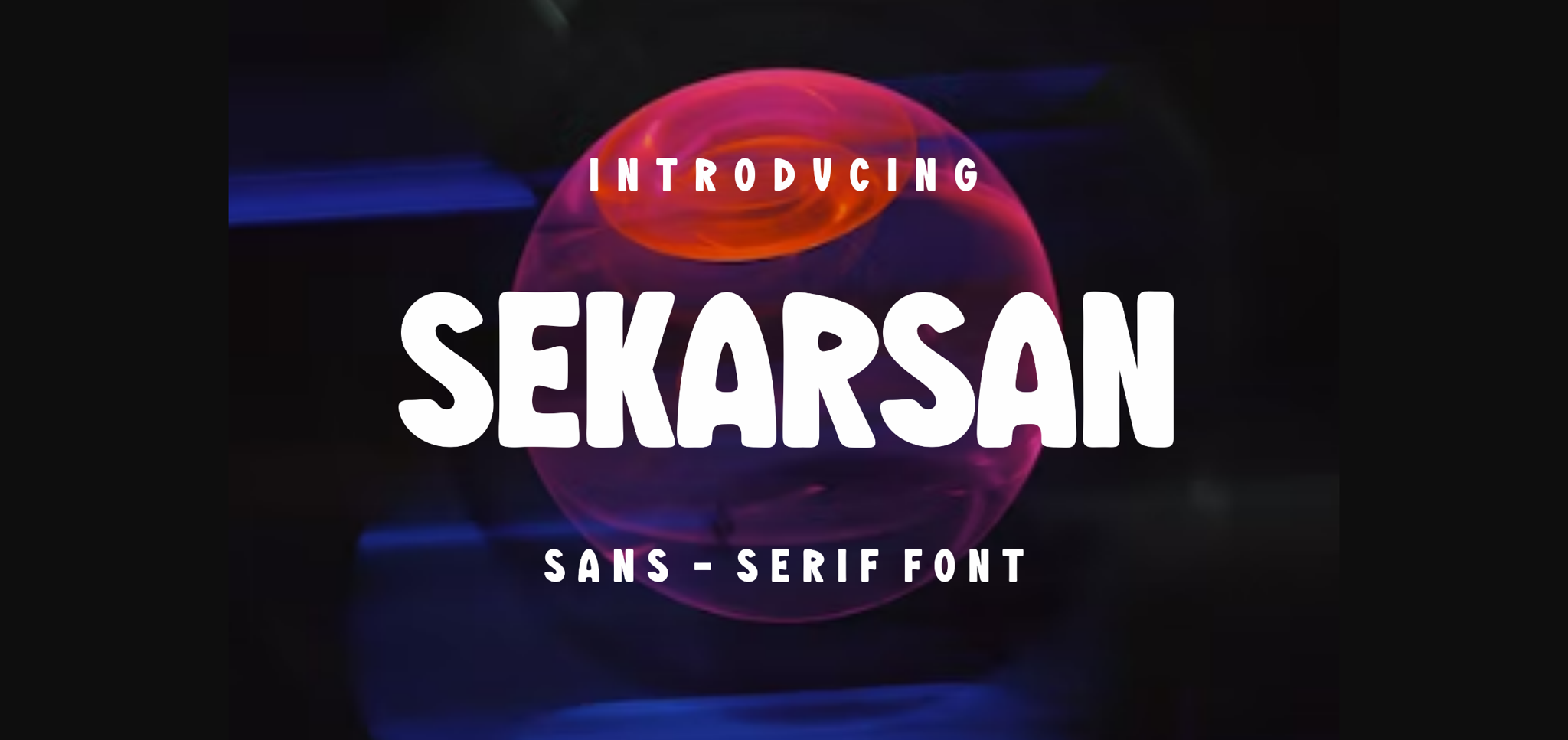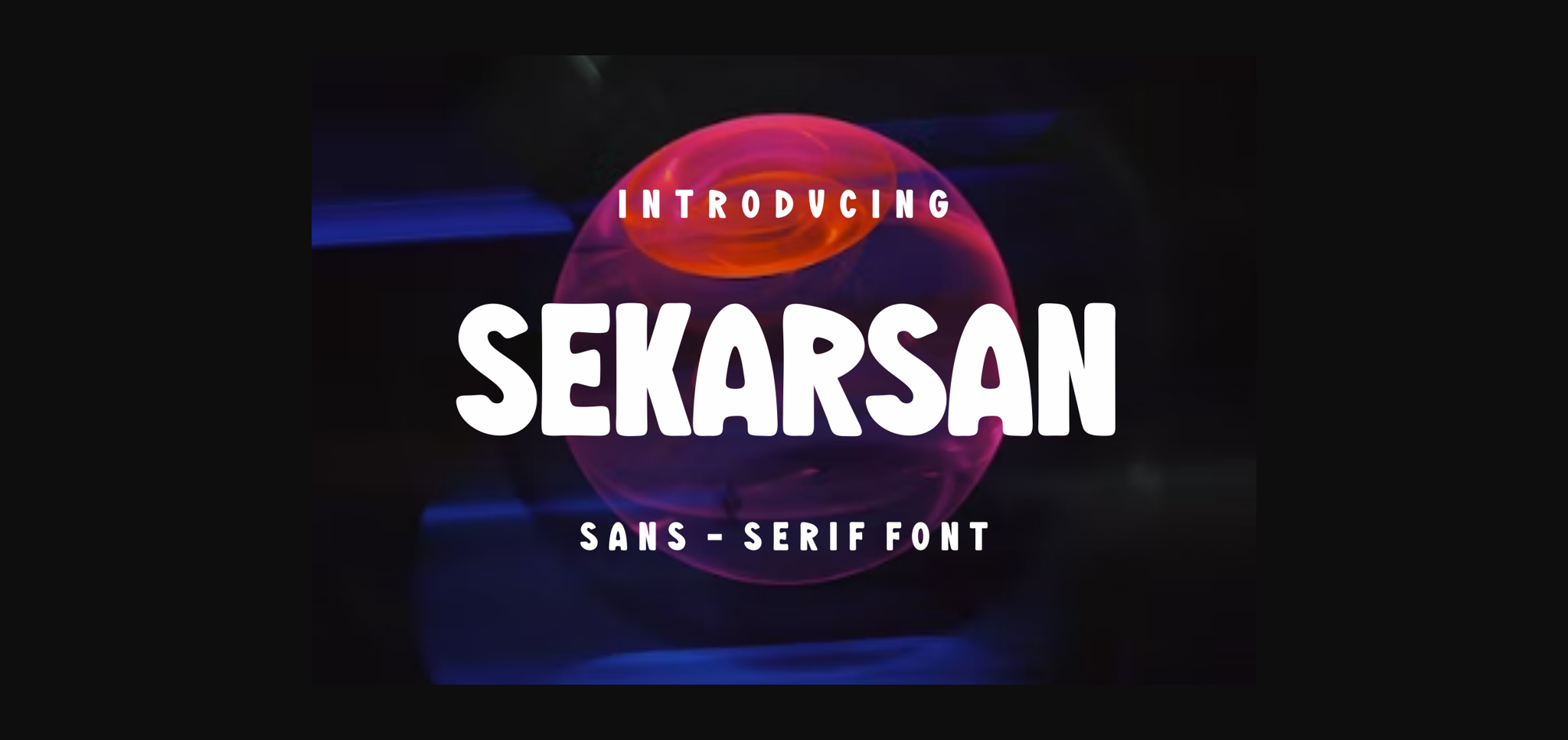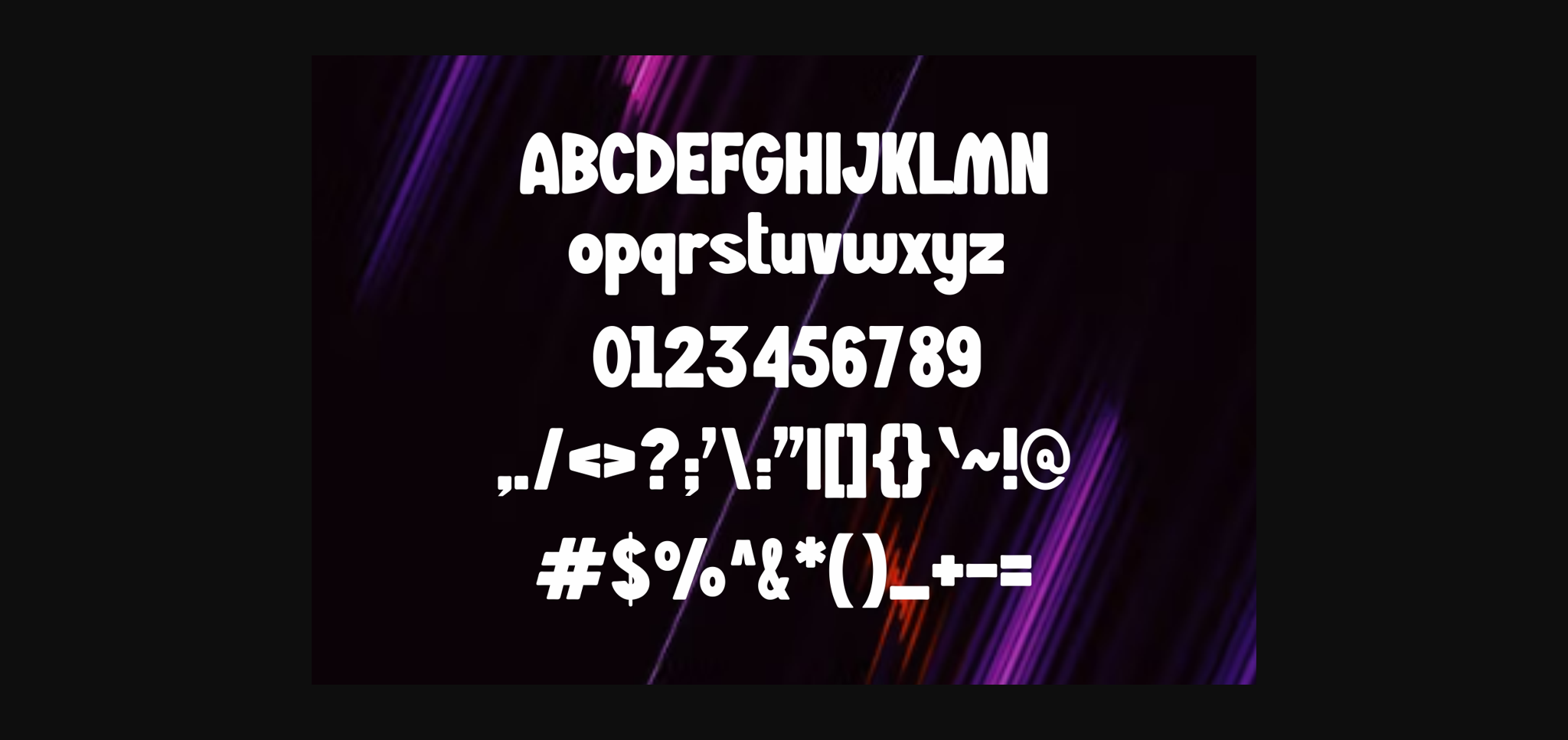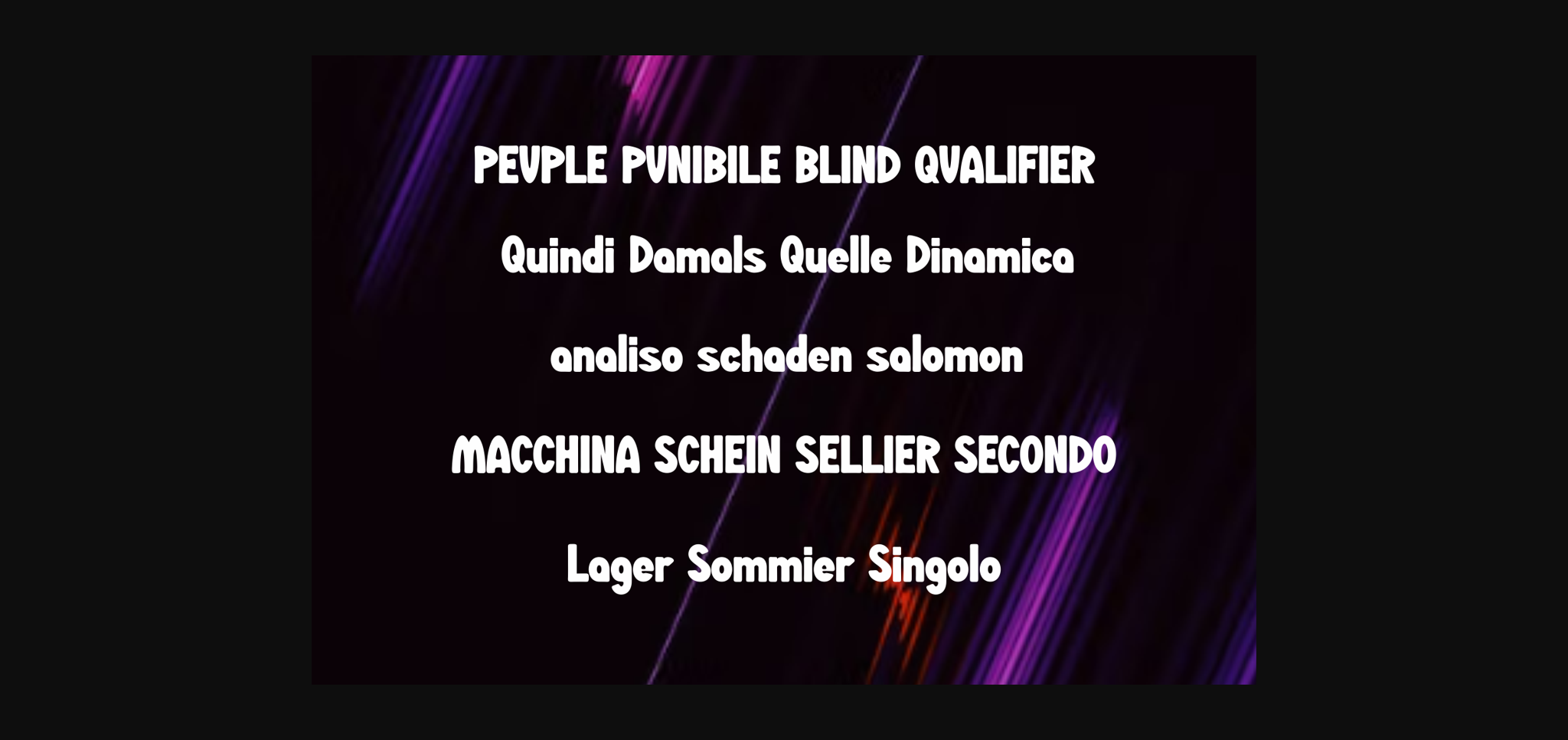
About Sekarsan Font
Sekarsan is a modern and bold sans serif font, perfectly suited on print/screen. It is also perfect for branding, name cards, posters, logos, magazines,
covers, banners, t-shirts, headers, or even large-scale artwork.